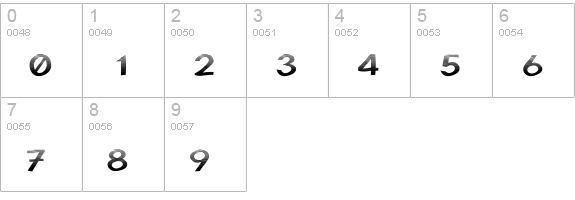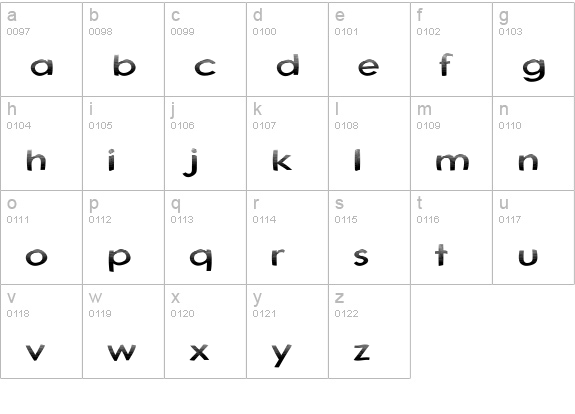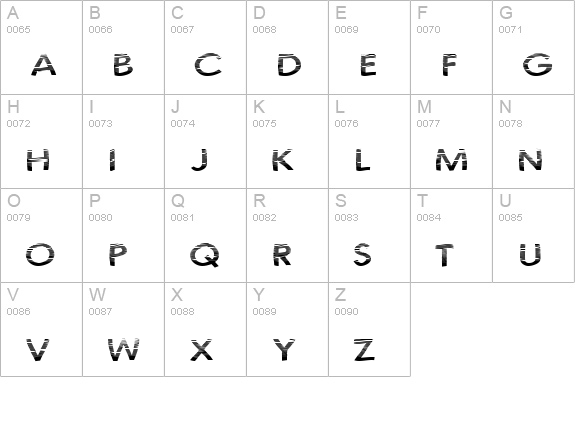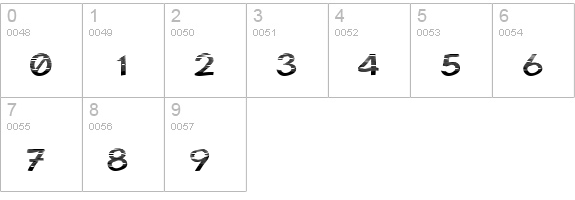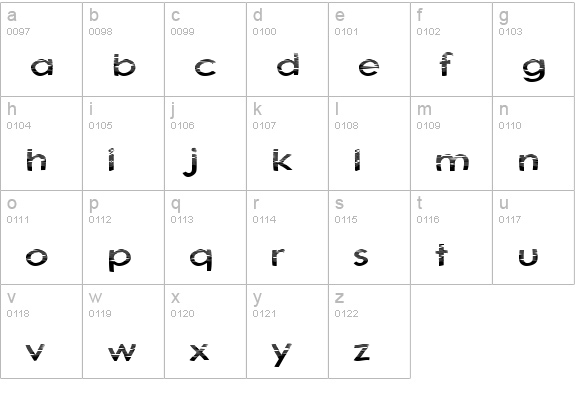
Australian Sunrise Font Details
Australian Sunrise font is a stunning display typeface that captures the beauty and vibrancy of a sunrise over the Australian outback. With its elegant and unique design, this font is perfect for adding a touch of sophistication to your projects. The graceful curves and stylish letterforms of Australian Sunrise font make it a versatile choice for a wide range of design applications. Whether you are working on branding, packaging, invitations, or any other creative project, Australian Sunrise font is sure to make a statement. Best of all, this font is available for free download at FontsMarket.com, making it easily accessible for all designers and creatives looking to add a touch of elegance to their work. Don't miss out on the opportunity to elevate your designs with the beauty of Australian Sunrise font.